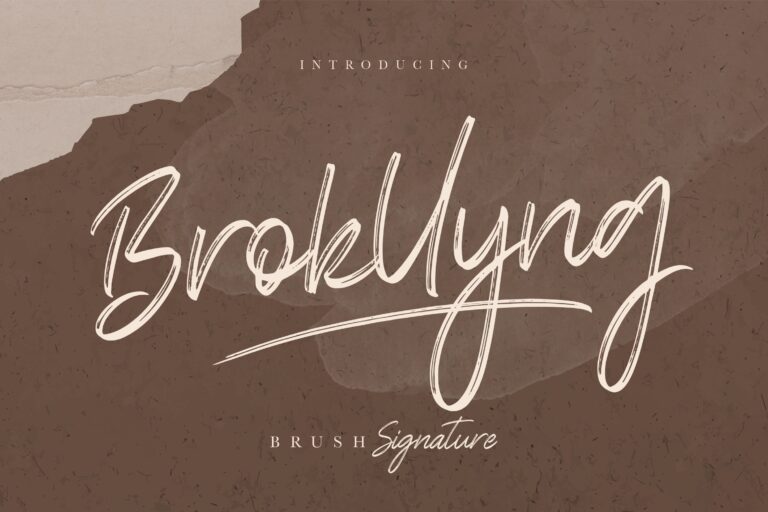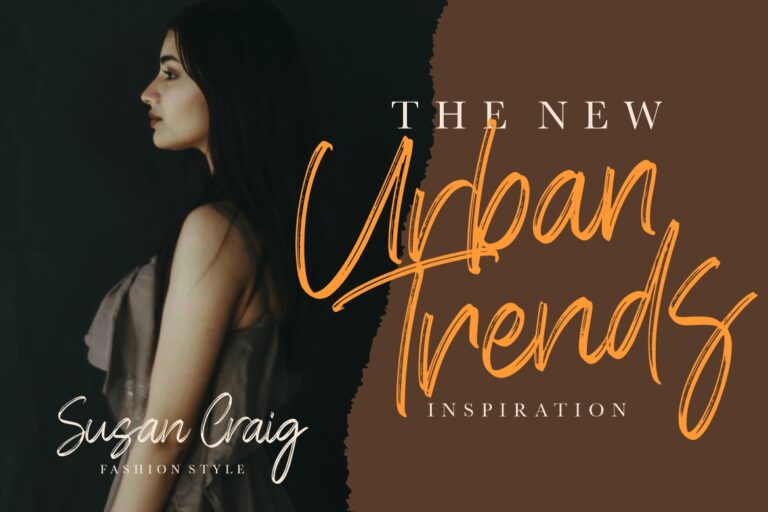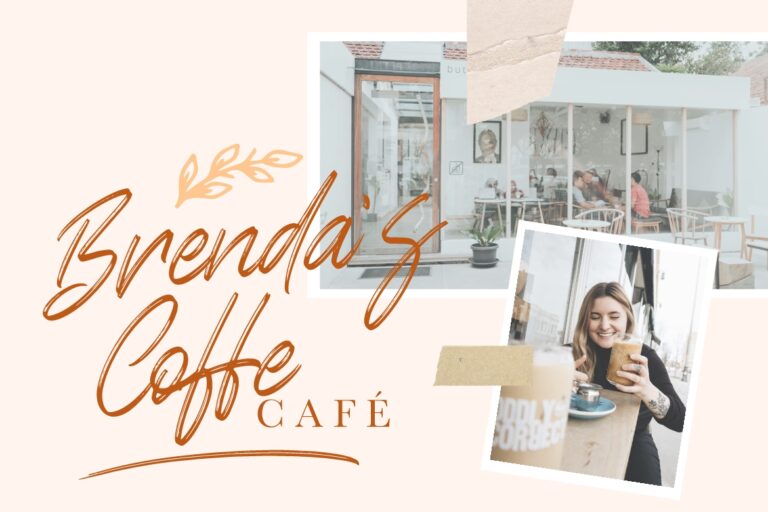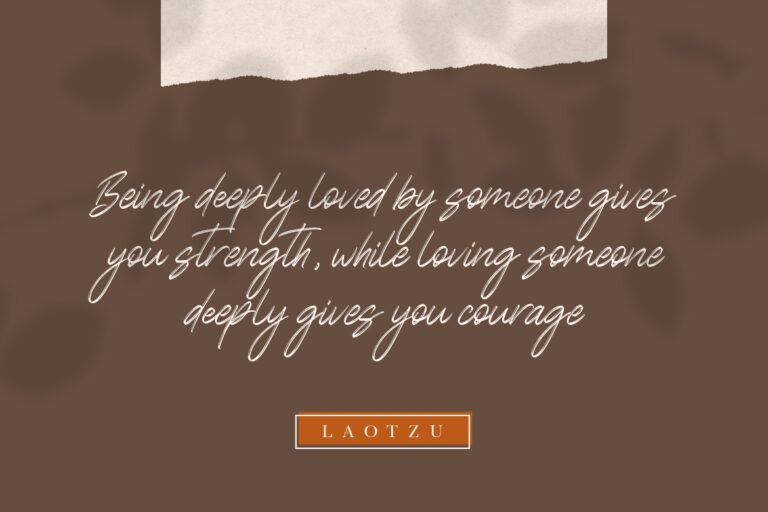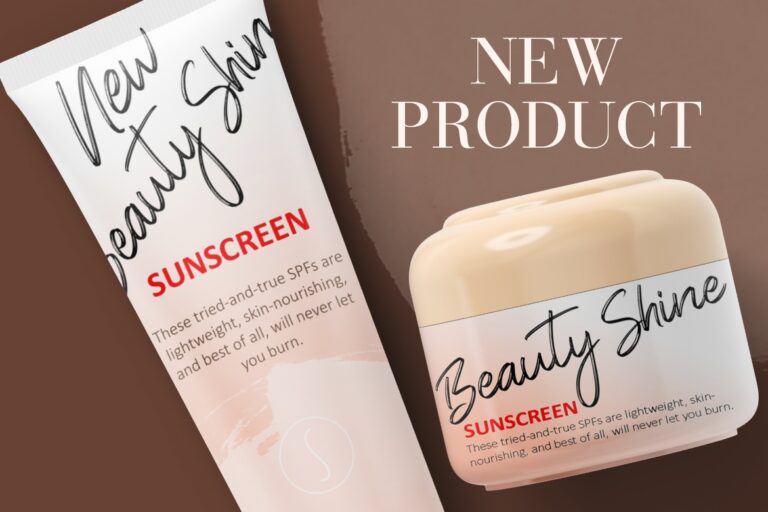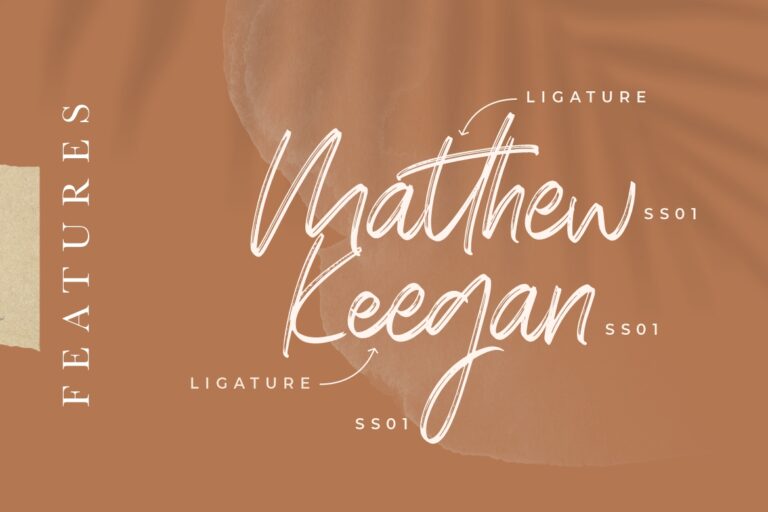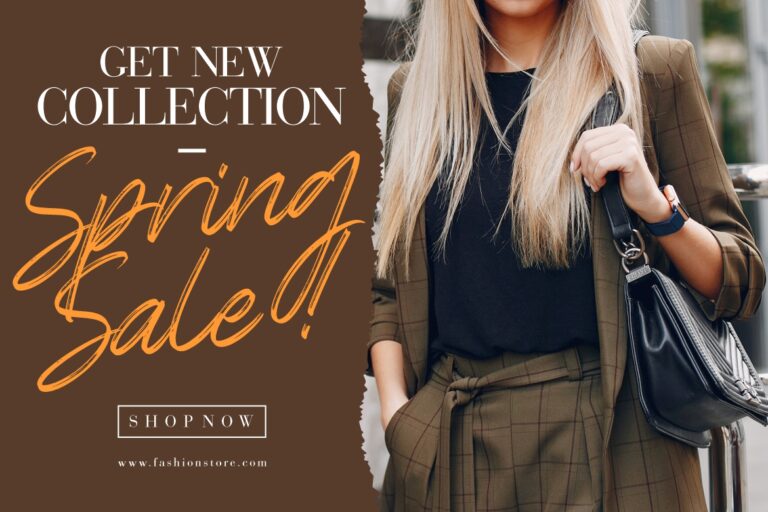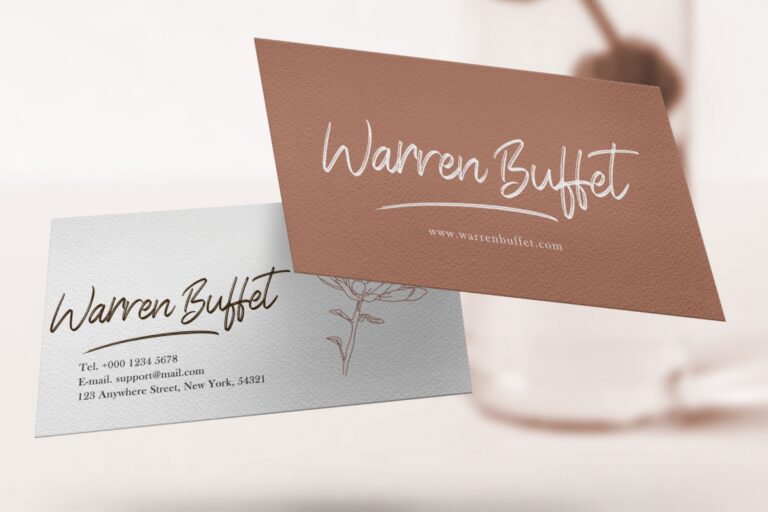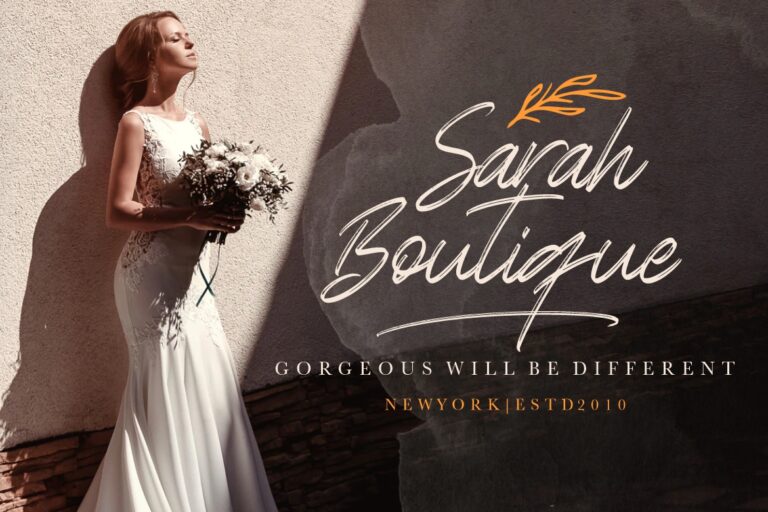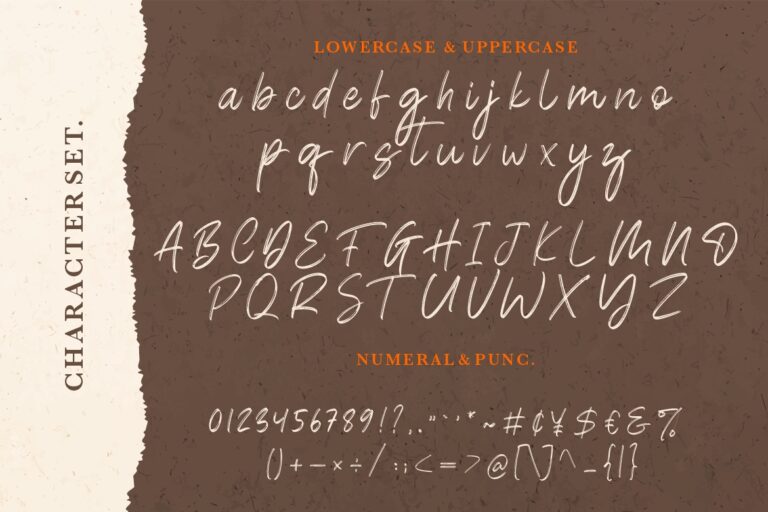
Brokllyng Brush Signature
Brokllyng a brush signature font with scratch natural movement will perfect for your creative project.
Brokllyng would perfect for photography, watermark, social media posts, advertisements, logos & branding, invitation, product designs, label, stationery, wedding designs, product packaging, special events or anything that need handwriting taste.
- Ligature, Alternate & Swashes